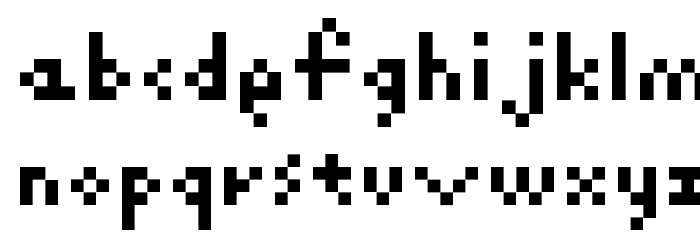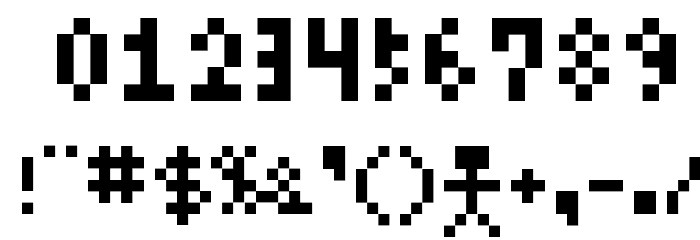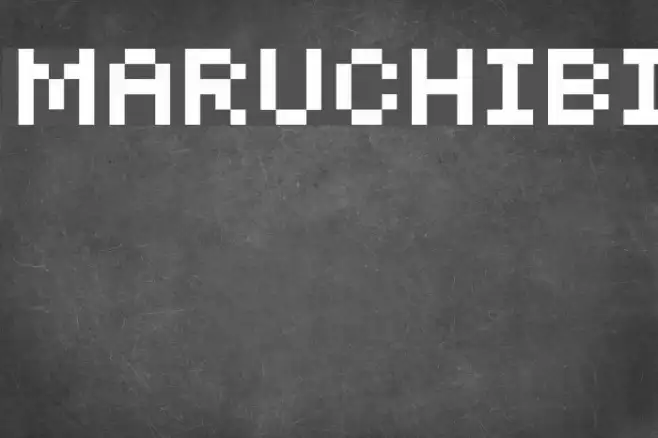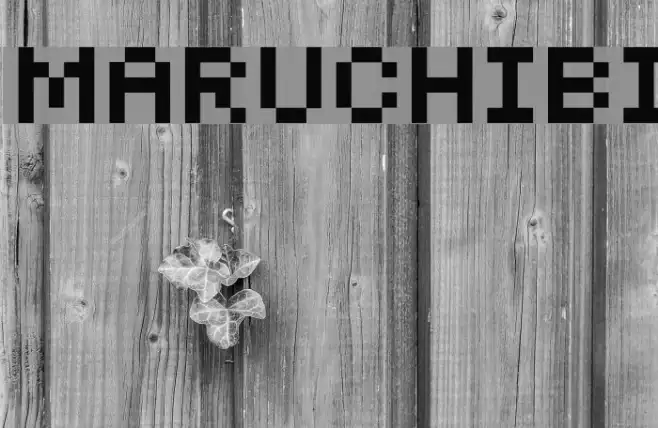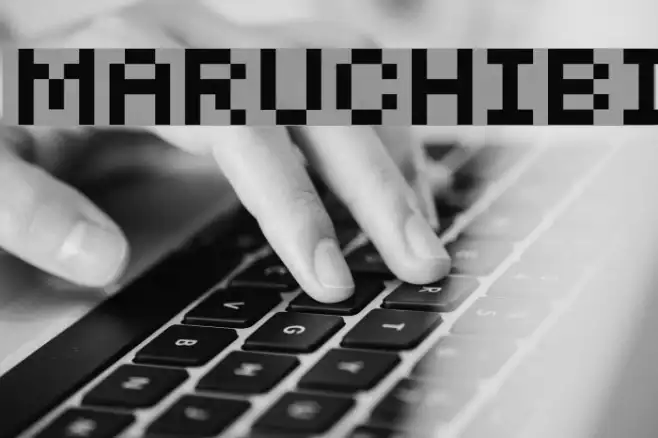
MARUCHIBI Font
This font features a pixelated, blocky style reminiscent of early digital displays and retro video games. Each character is constructed with uniform square blocks, giving it a distinctly digital and geometric appearance. The uppercase and lowercase letters maintain a consistent height, contributing to a uniform and cohesive look. The numerals and special characters follow the same pixelated design, ensuring a seamless integration across all text elements. This font's nostalgic aesthetic is ideal for projects that aim to evoke a sense of retro technology or digital art.
A pixelated, blocky font with a retro digital aesthetic.
- Proposed Projects: Ideal for video game design, digital art projects, retro-themed posters, and tech-related branding.
- Overall Style: Retro, Digital